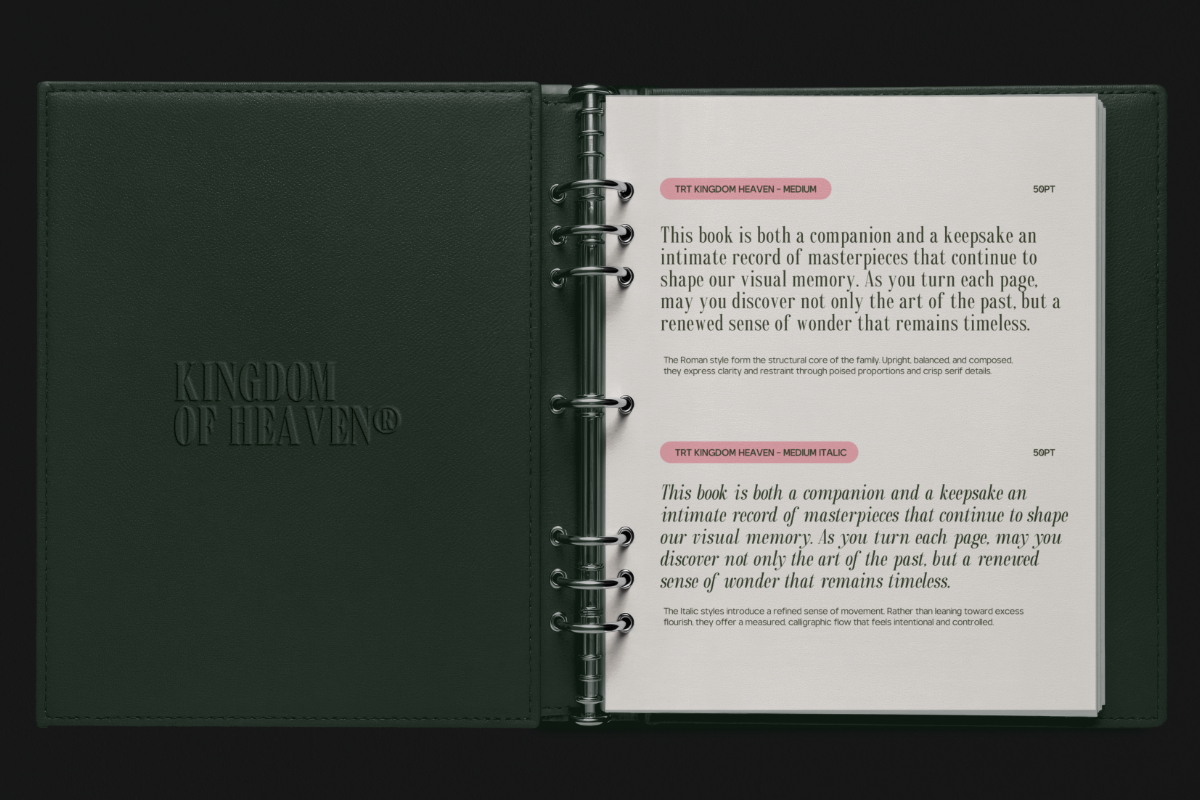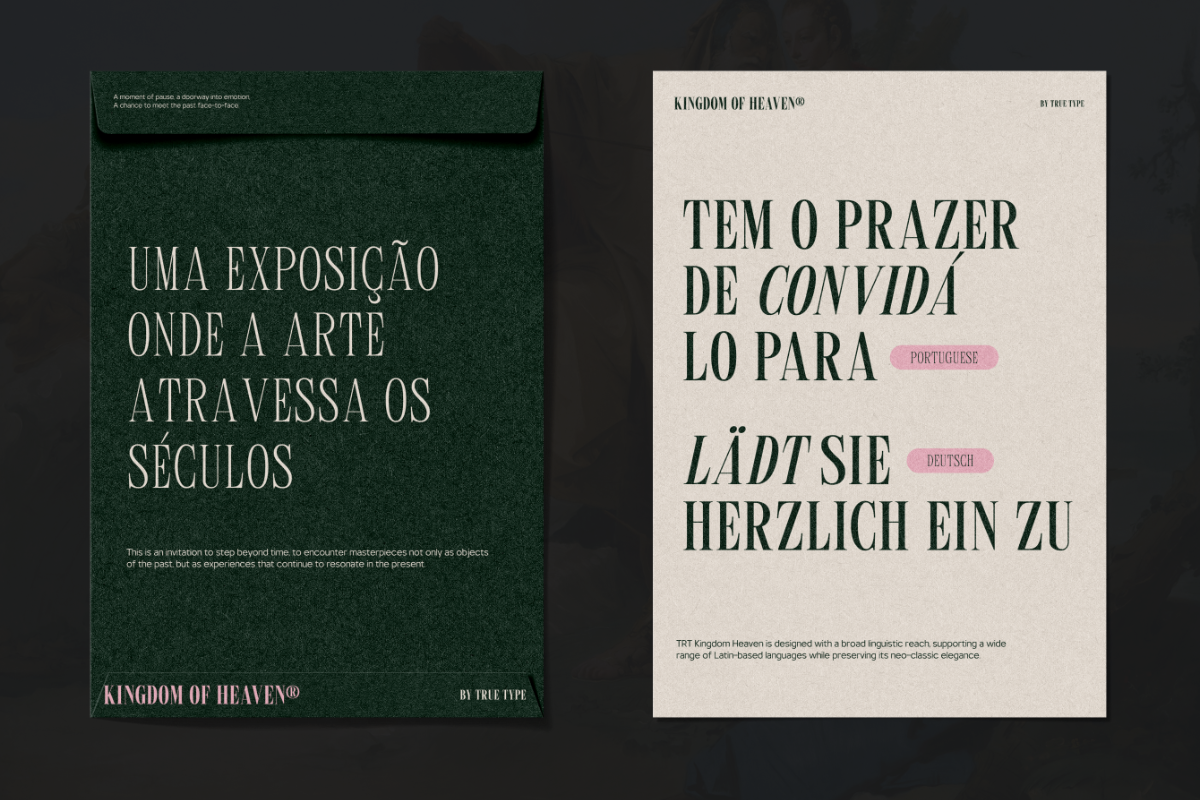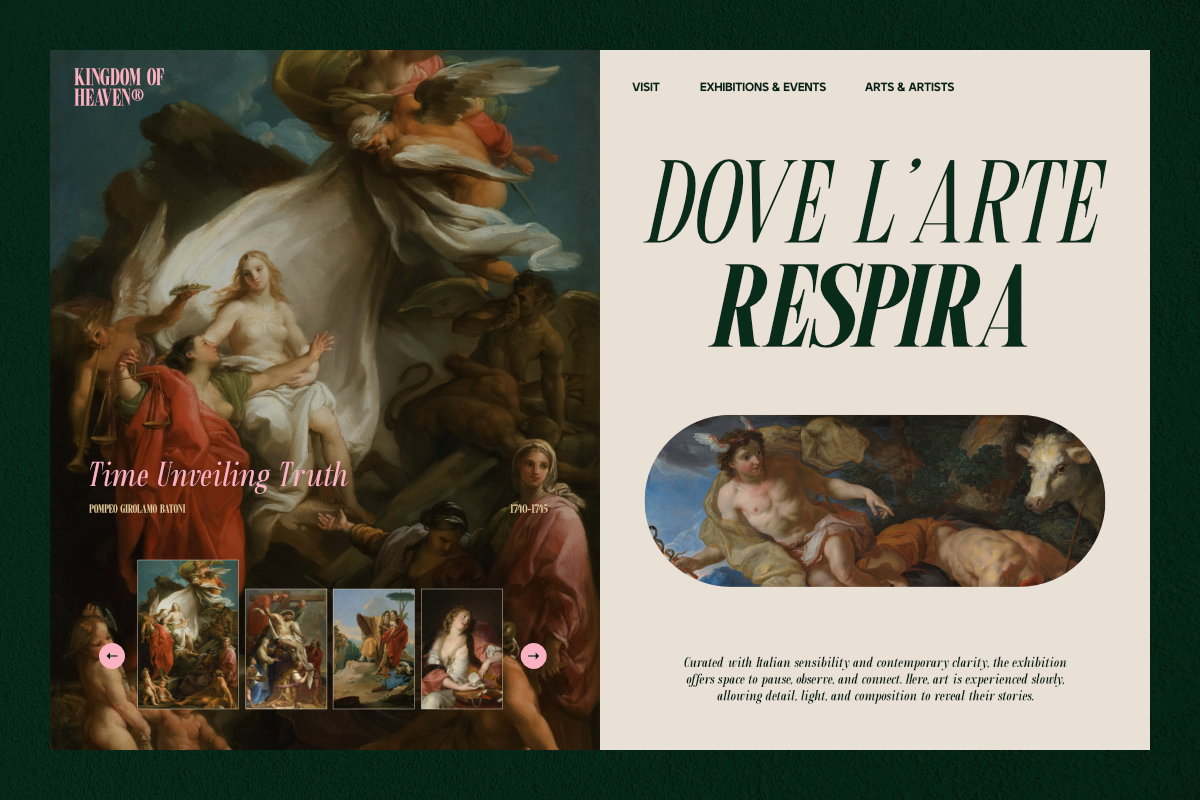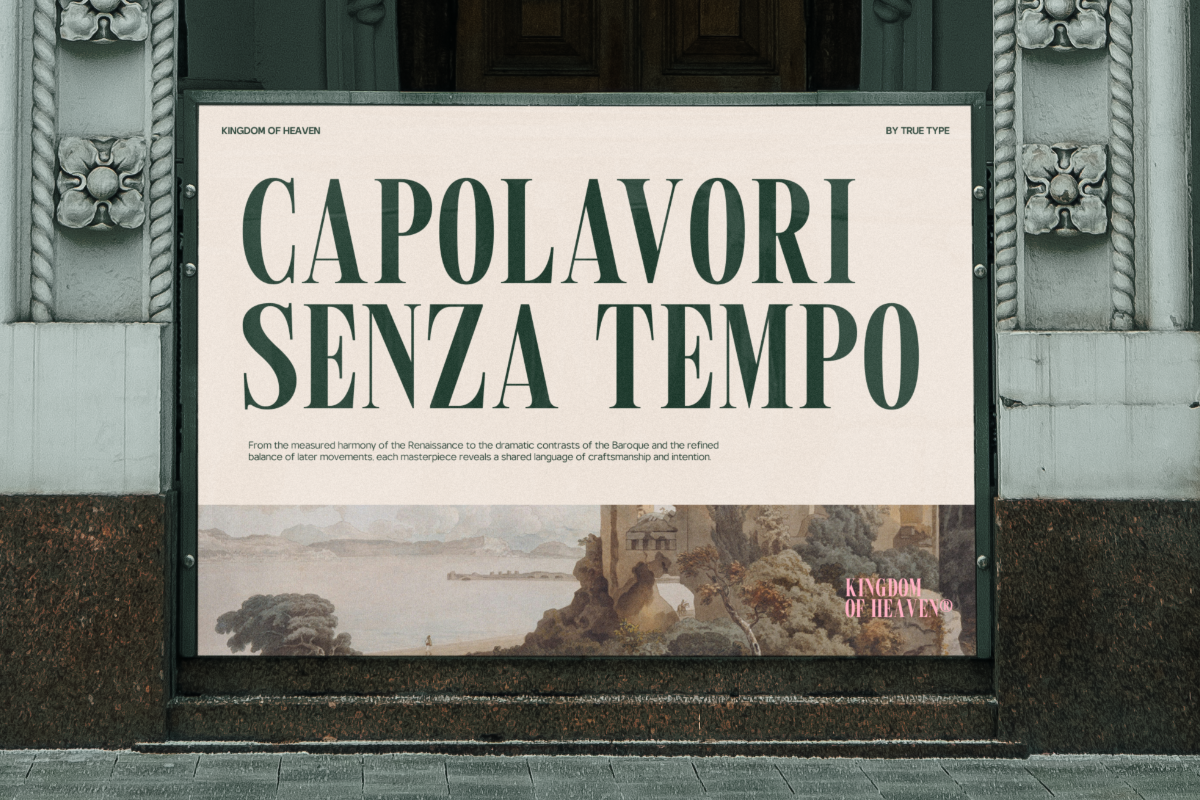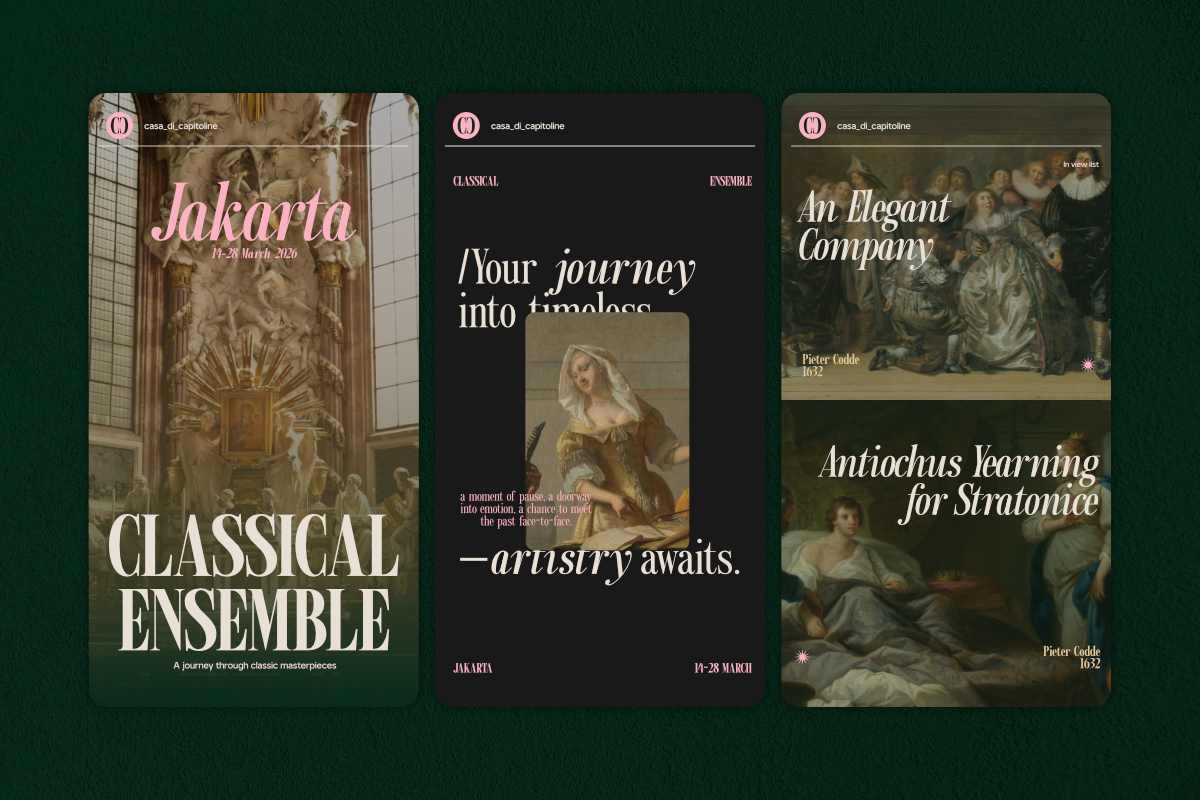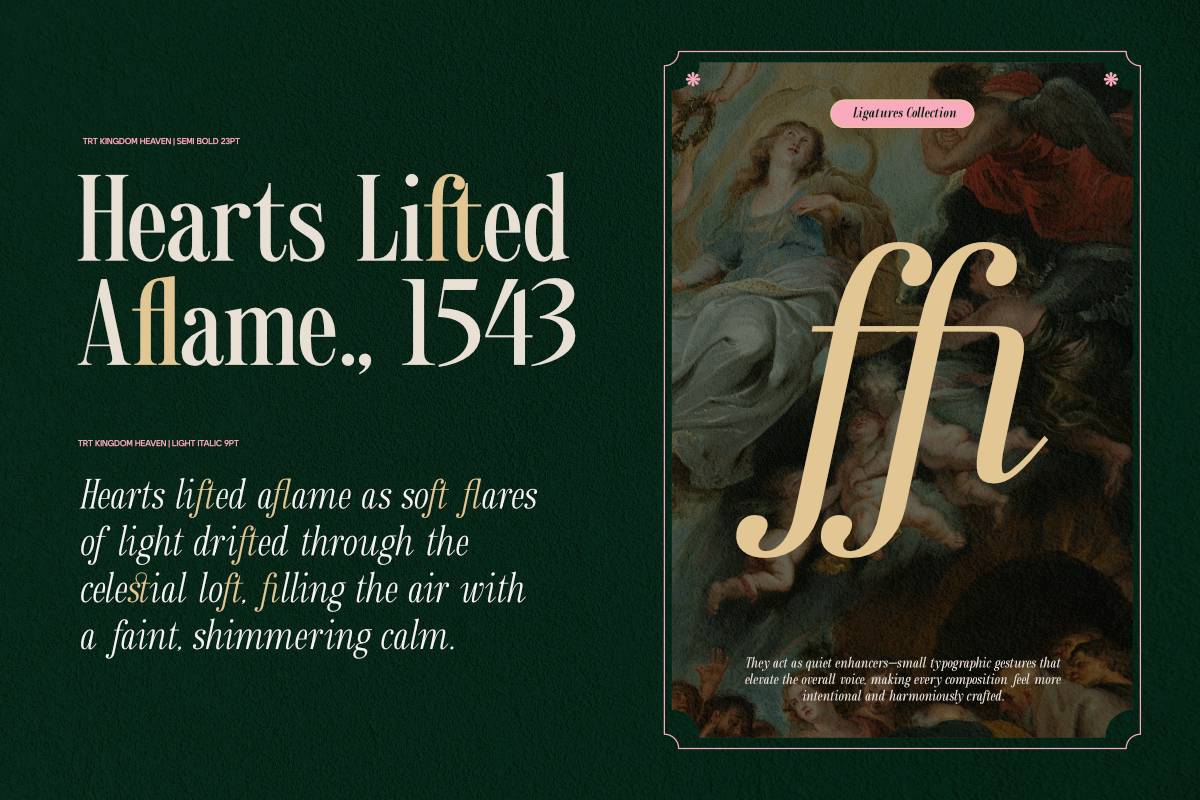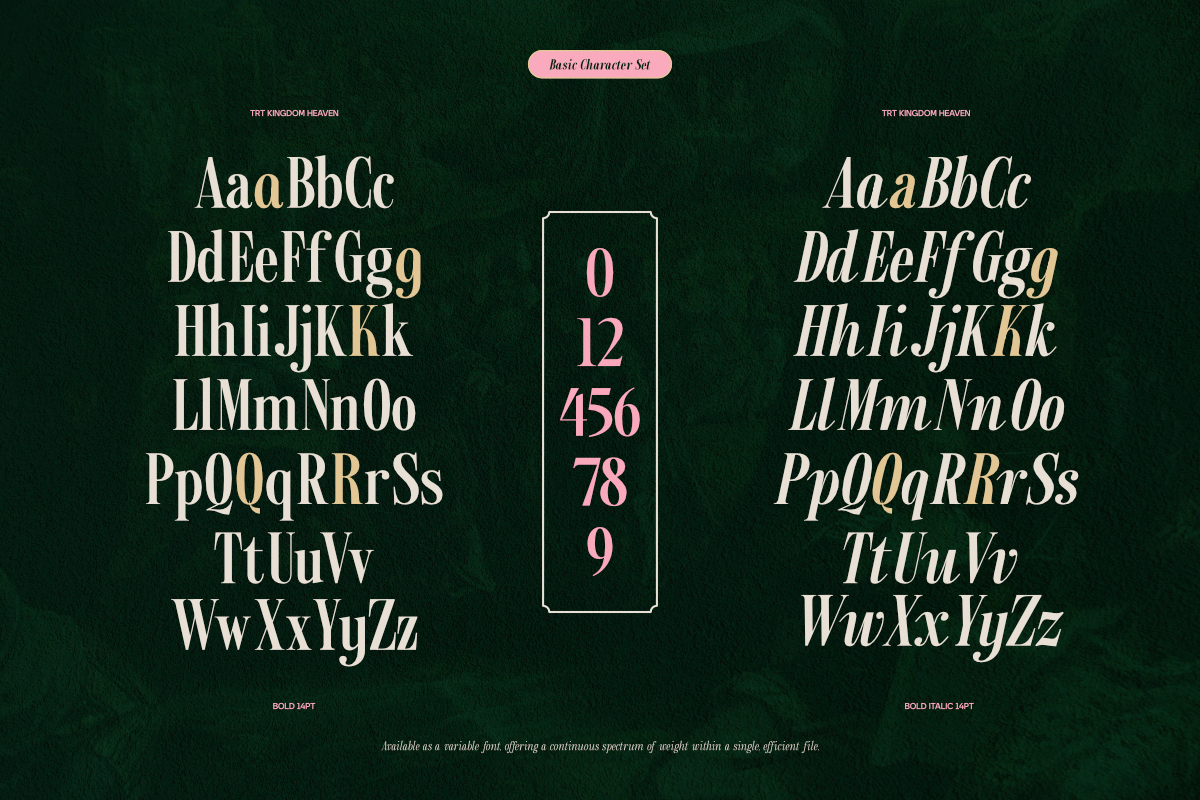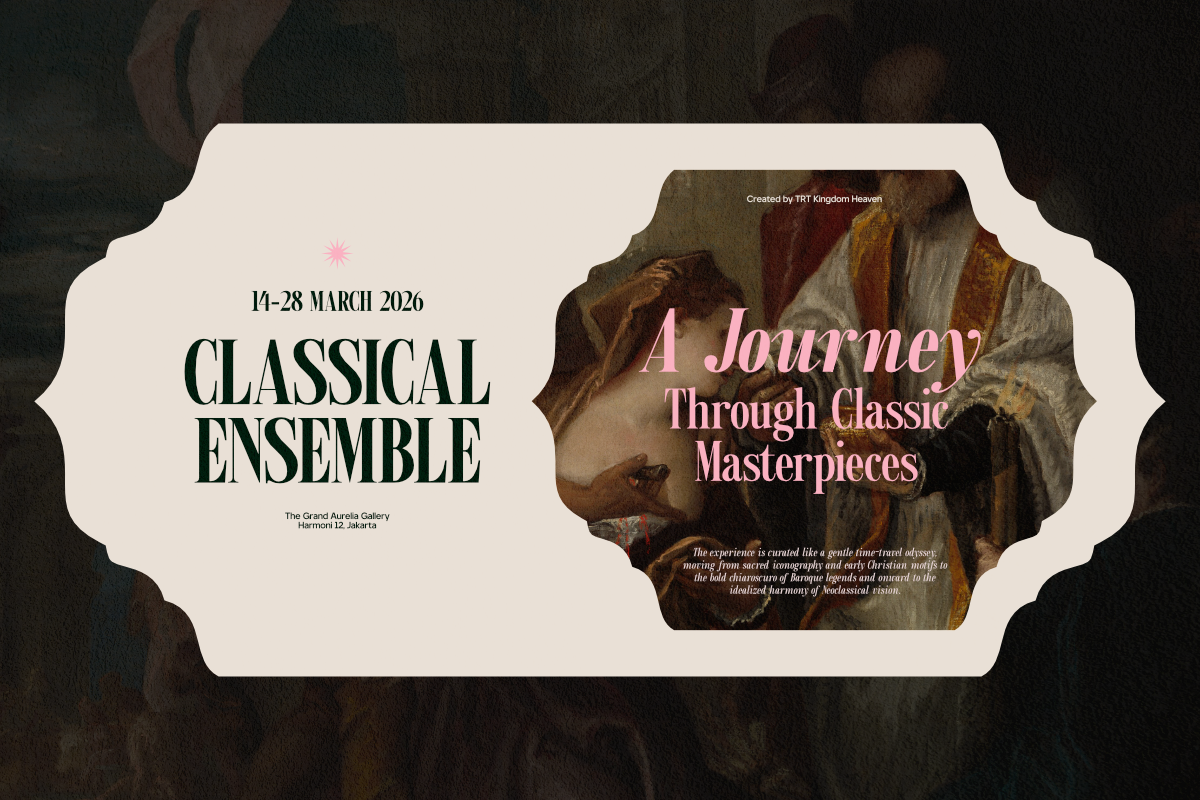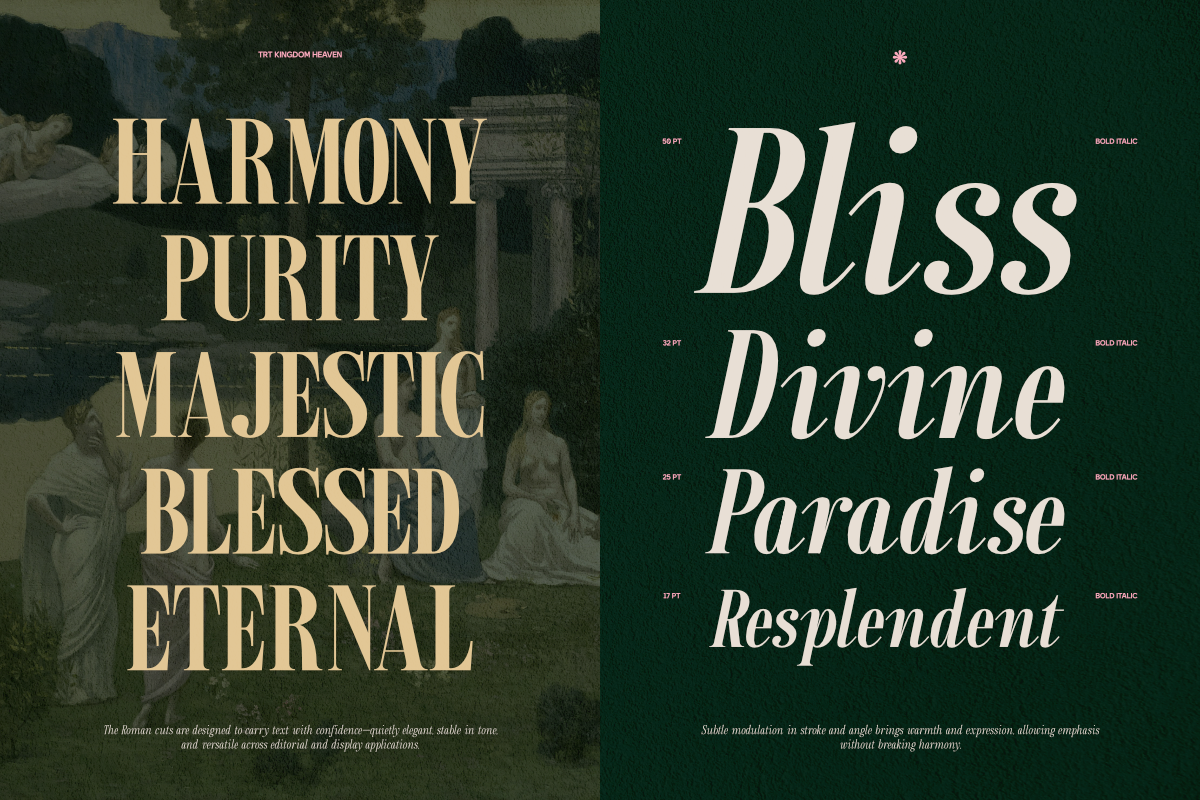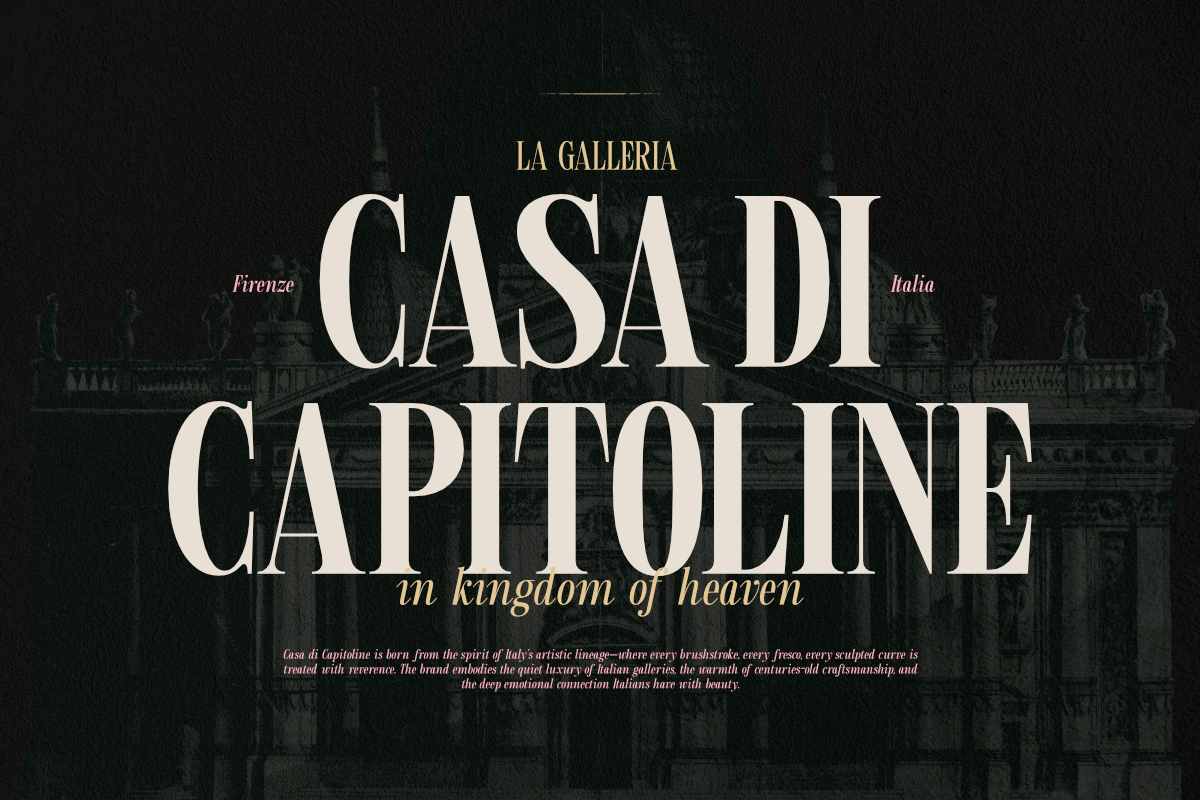
TRT Kingdom Heaven Serif Family
TRT Kingdom Heaven is a refined serif family complete with a beautifully crafted True Italic. Designed with elegant curves, classic proportions, and a modern touch, this typeface brings a majestic and sophisticated feel to any design project perfect for branding, editorial layouts, invitations, packaging, and display typography.
The True Italic style introduces expressive strokes, graceful movement, and an authentic handwritten influence, making headlines, quotes, and visual storytelling feel richer and more emotional. With its balance of clarity and elegance, TRT Kingdom Heaven offers versatility for both formal and creative applications.